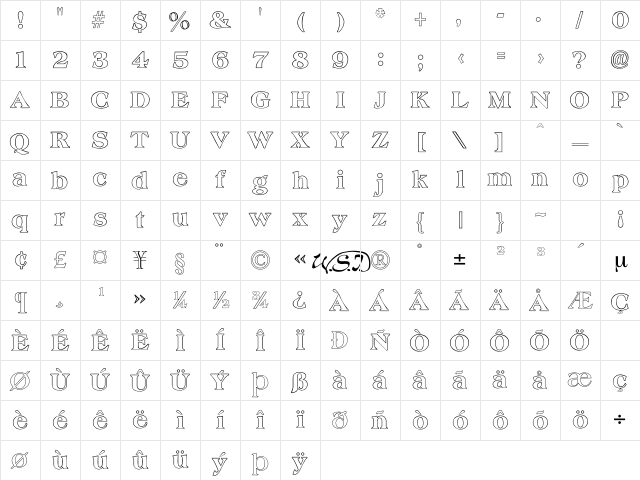
Amphion Outline Regular
Amphion Outline Family
Design Context for Amphion Outline
Amphion Outline is built around its visual character rather than neutral utility - its distinctive forms are designed to make an impression at display sizes.
Font Pairing: Pair with a clean neutral sans-serif for body copy to let Amphion Outline's character lead without overwhelming the composition.
Pro Tip: Use Amphion Outline exclusively at display sizes - it was designed to be seen, not read at length. Let a neutral companion handle body copy.